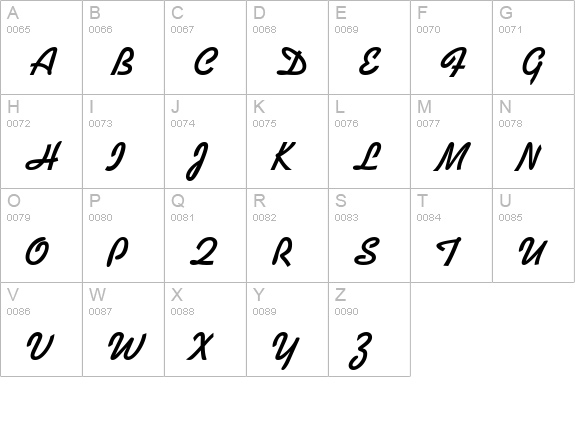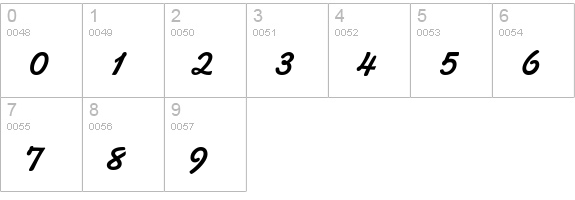
DinerScriptPlain Font Details
DinerScriptPlain font is a charming and nostalgic typeface that brings a touch of retro flair to any design project. With its playful yet sophisticated appearance, this font is perfect for creating eye-catching headlines, signage, or invitations. The smooth lines and classic styling of DinerScriptPlain evoke a sense of old-school diners and vintage Americana. Best of all, DinerScriptPlain is available for free download at FontsMarket.com, making it easy to add a dose of personality to your designs without breaking the bank. Whether you're working on a fun branding project or designing a quirky poster, DinerScriptPlain is sure to make a statement and capture the attention of your audience. Download this delightful font today and let your creativity shine!